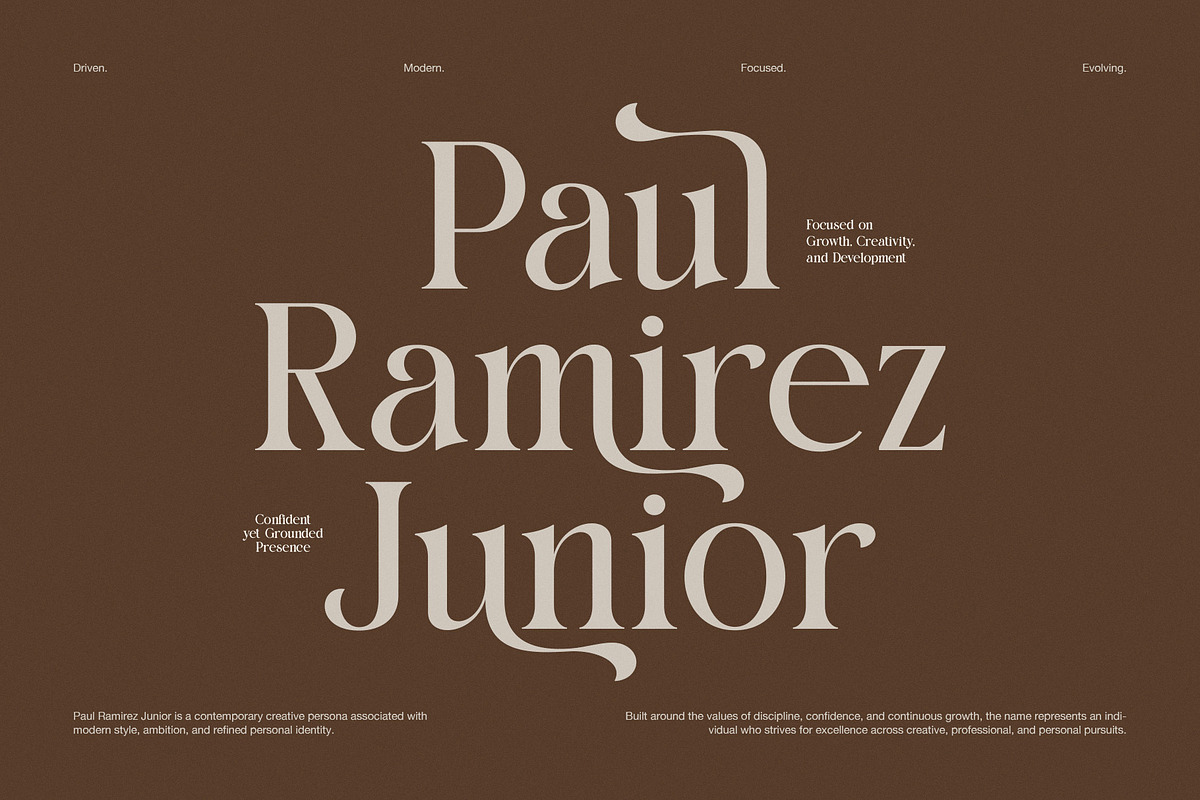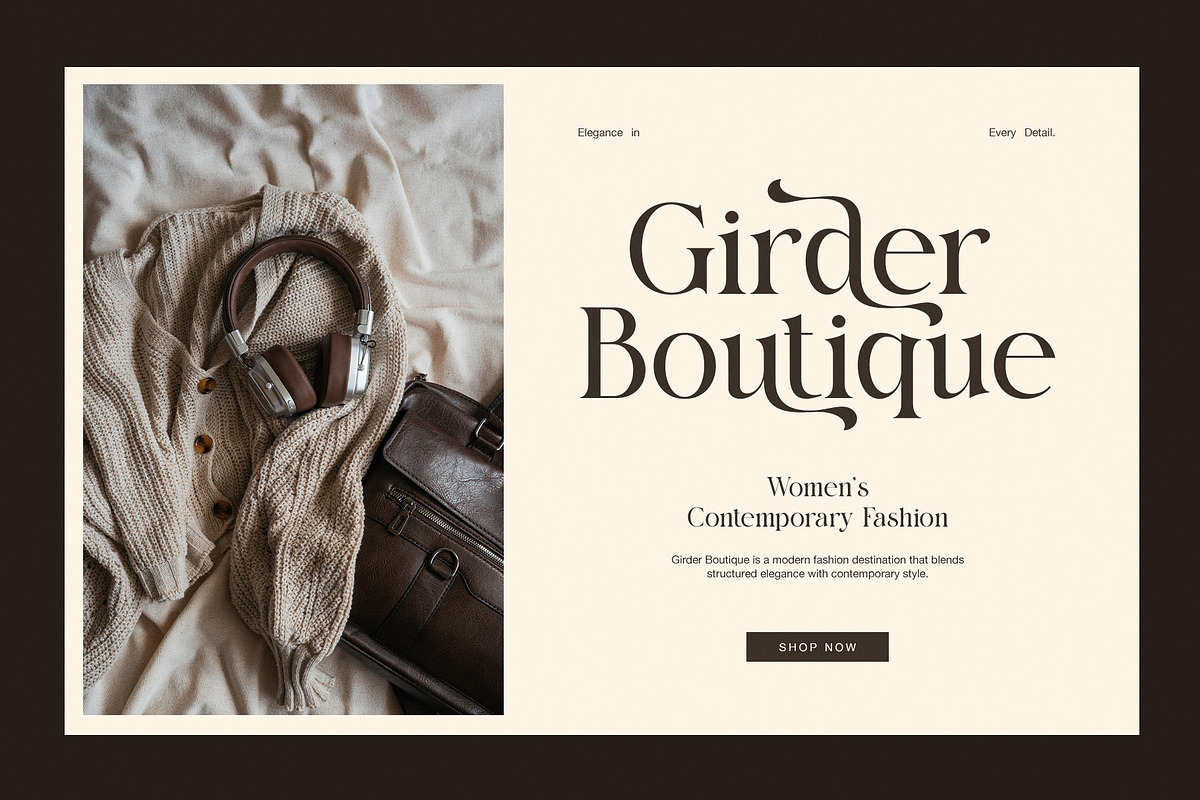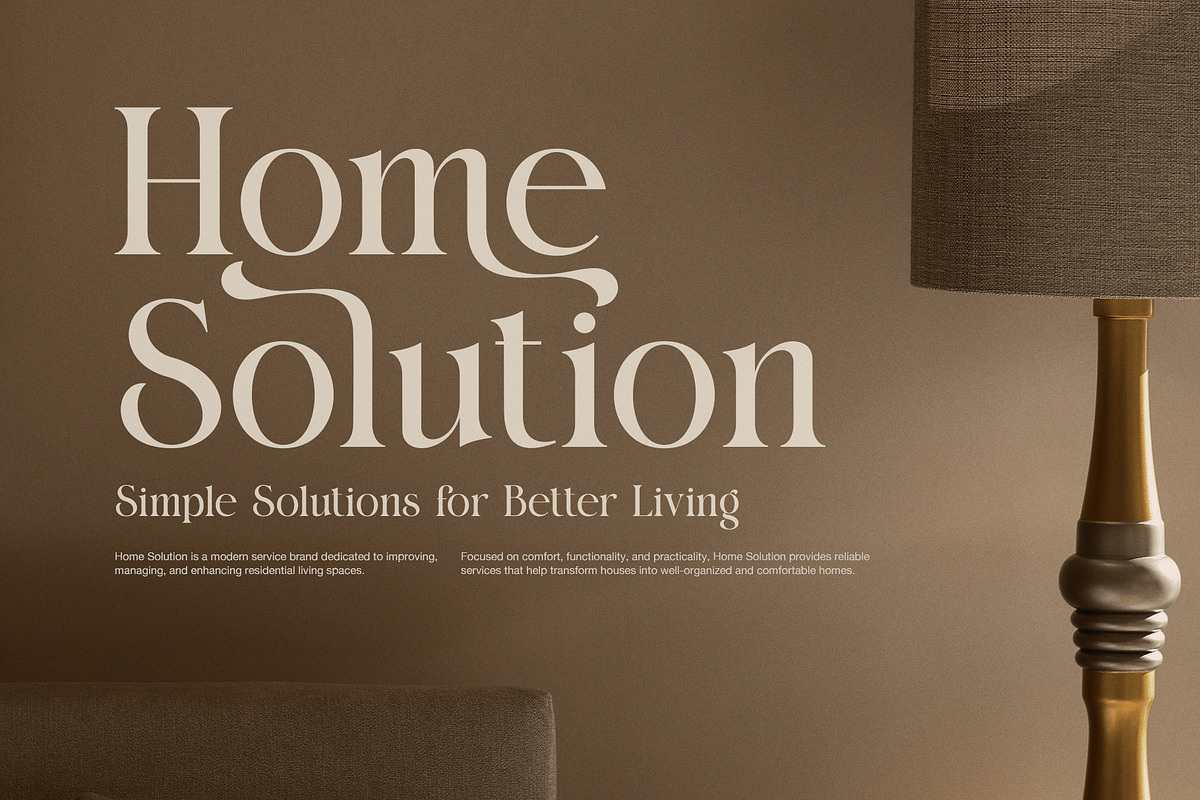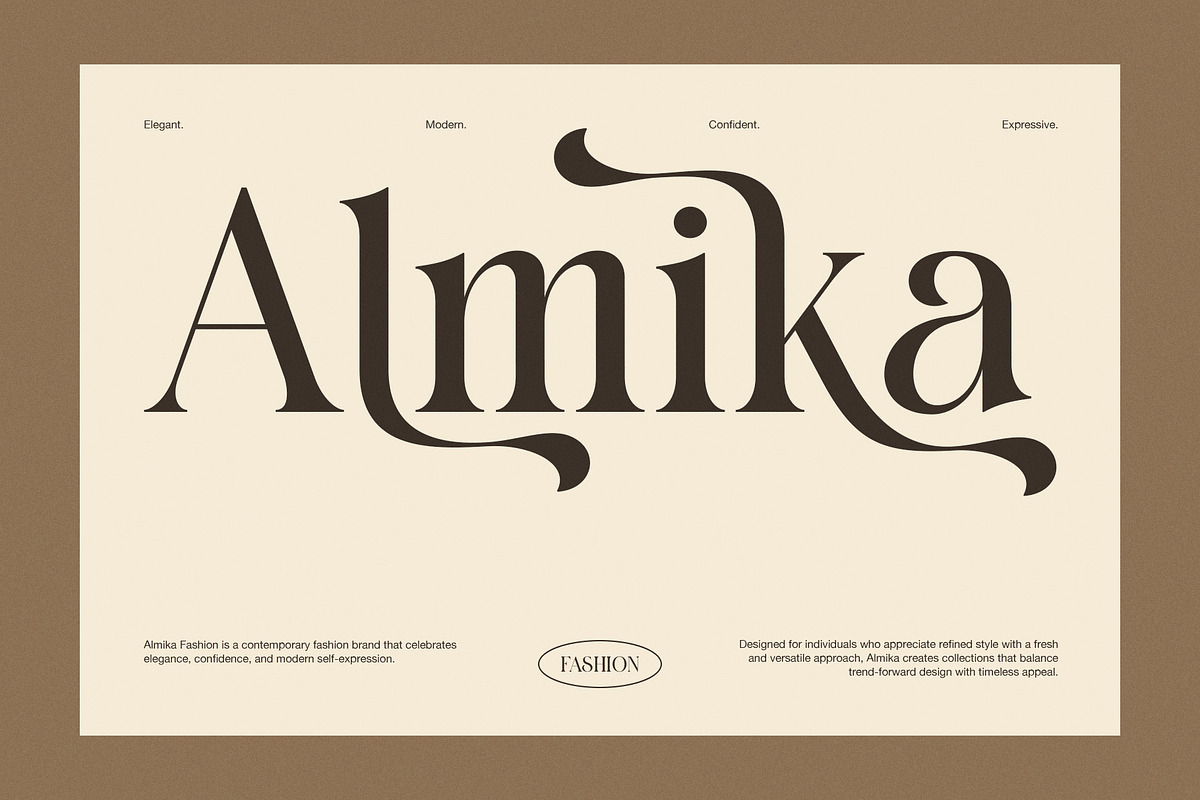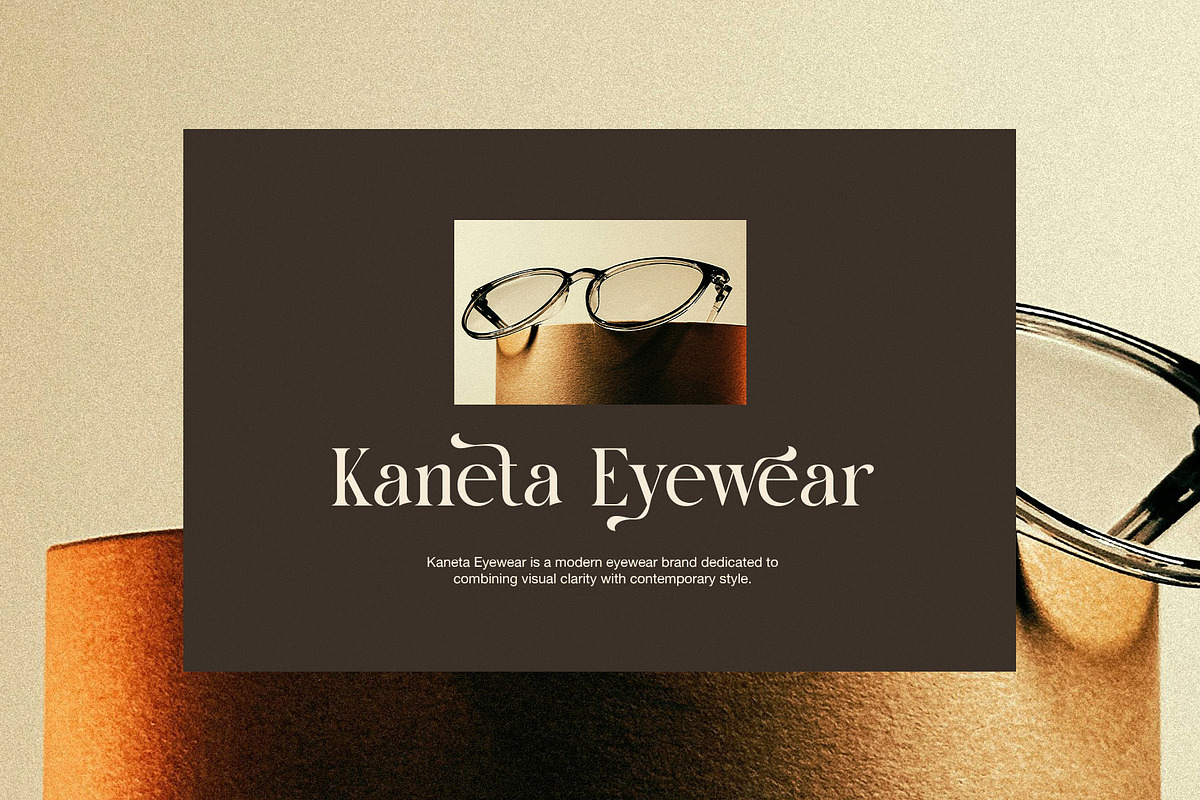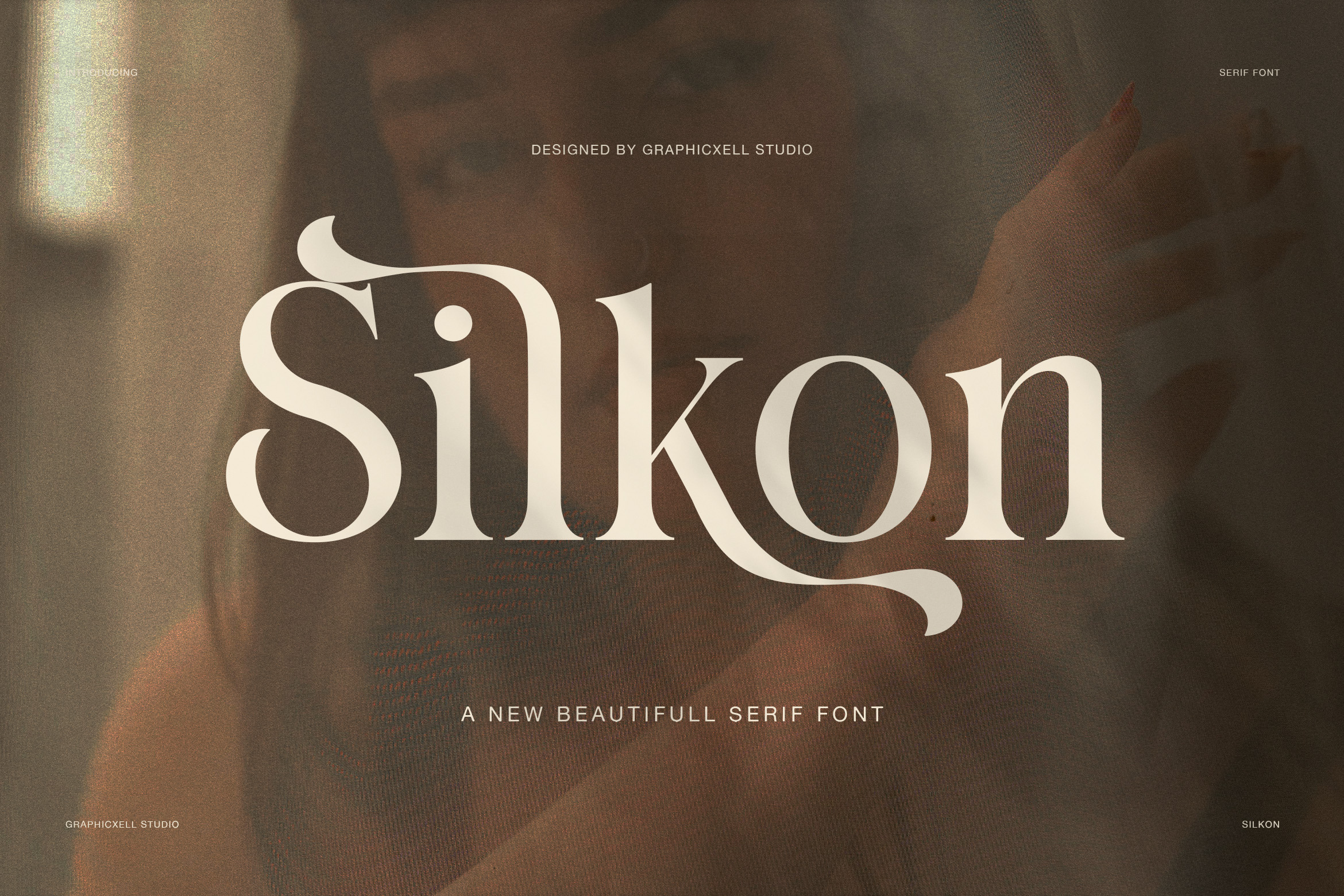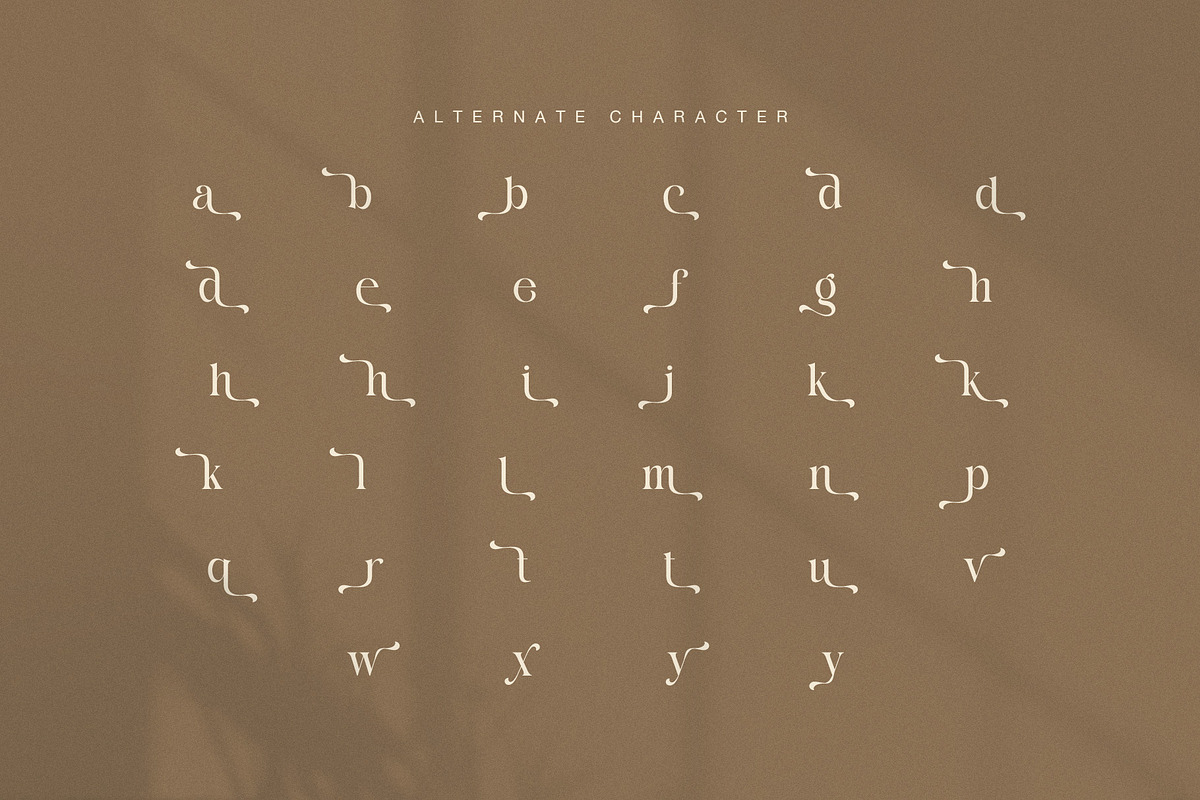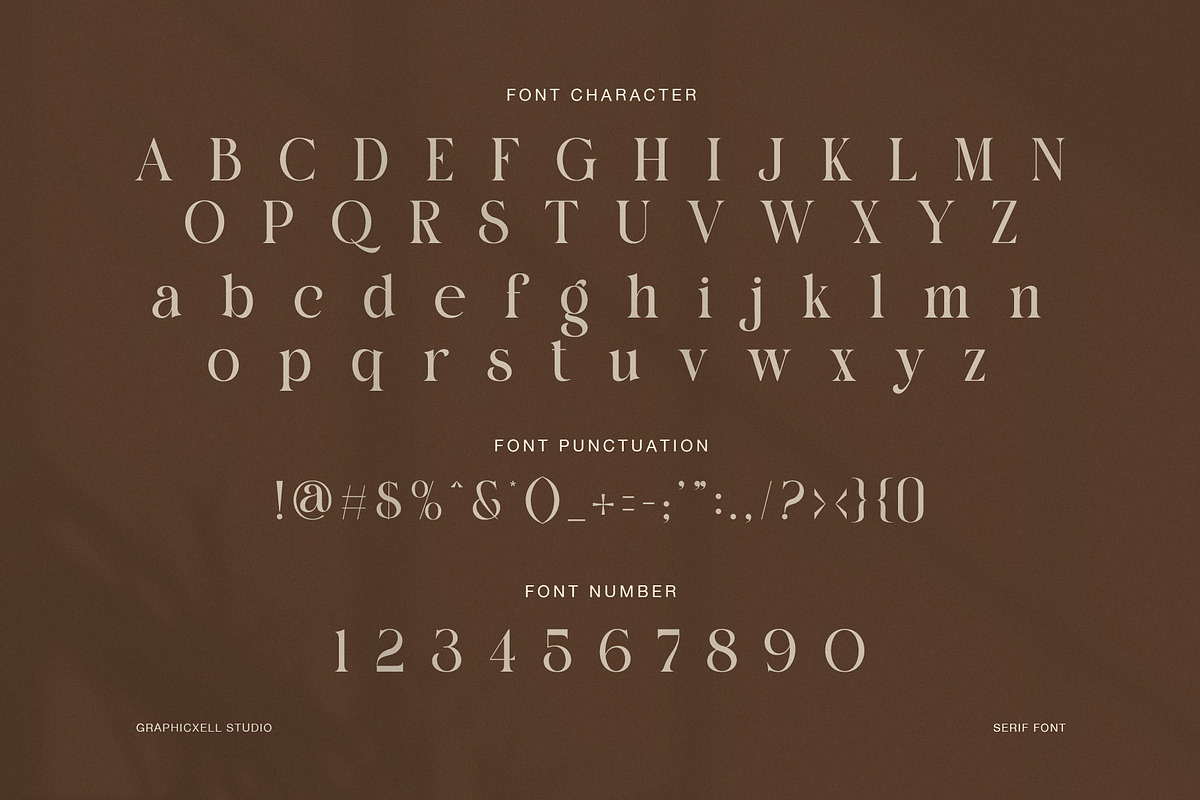
Silkon Elegant Serif Font
Silkon Elegant Serif Font is a modern display serif with a smooth, graceful, and expressive look. It blends clean serif structure with flowing decorative details, so it feels stylish at first glance and memorable in use. Because of that balance, Silkon works beautifully for branding, editorial layouts, fashion visuals, and refined product presentations.
The shape of Silkon is elegant, yet it also feels fresh and confident. Its main letterforms show soft contrast, clean stems, and sharp serif endings. At the same time, several letters feature long curved tails and refined alternate forms that add motion and charm. These details make the font feel alive. Therefore, Silkon is more than a basic serif font. It is a display typeface with clear personality and premium appeal.
In the preview examples, Silkon performs very well across many styles. It looks strong in fashion branding, personal name layouts, home and interior themes, boutique presentations, and eyewear branding. As a result, this font feels flexible for both luxury and lifestyle design. It can look feminine and soft in one layout. However, it can also look clean, modern, and professional in another.
Another highlight is the alternate character set. The alternates bring a custom feel to words without making the text hard to read. In addition, the punctuation and number set keep the full font system polished and consistent. Because of this, Silkon is a useful choice for logos, packaging, headlines, social media graphics, invitation designs, and brand identity projects.
Best uses for Silkon
luxury branding
logo design
fashion editorials
boutique packaging
beauty branding
home decor branding
eyewear branding
social media graphics
headline design
invitation design
Why designers will love it
Silkon Elegant Serif Font helps short text look elegant, stylish, and distinct. Moreover, it adds a graceful rhythm through its flowing terminals and alternate characters. While many serif fonts feel too formal or too plain, Silkon feels softer and more expressive. For that reason, it is ideal for designers who want a serif font with beauty, clarity, and modern charm.
If you need an elegant serif font for luxury branding and standout display work, Silkon is a strong choice. It brings refined style, gentle movement, and timeless appeal to every design.